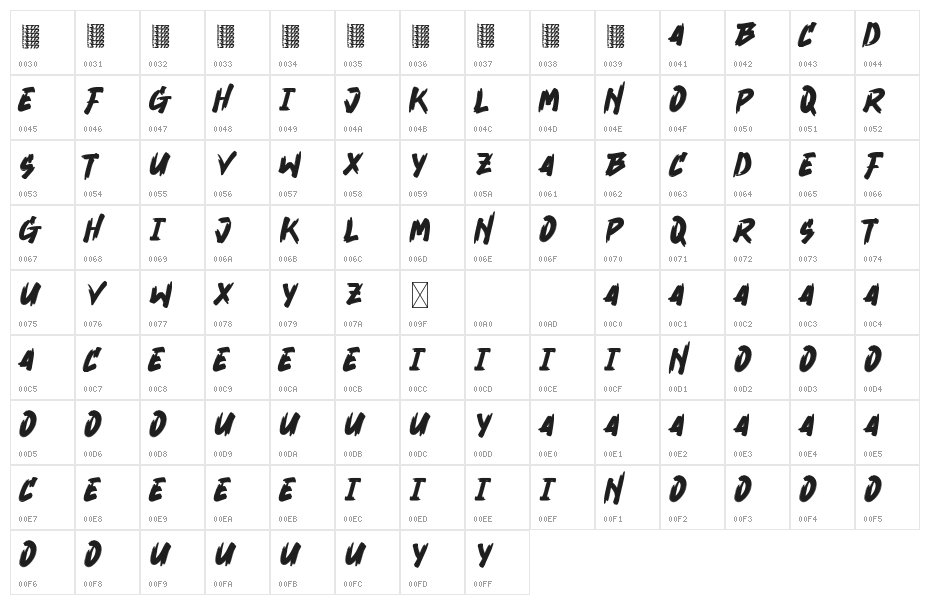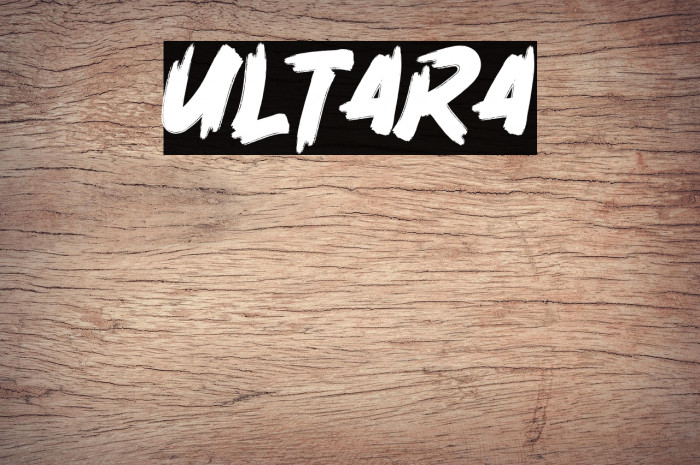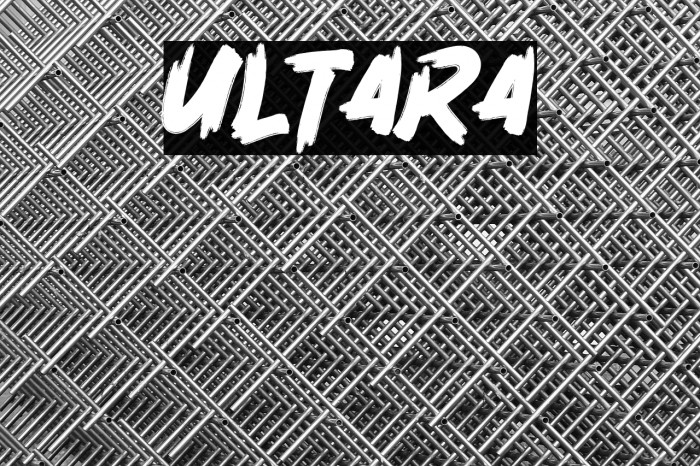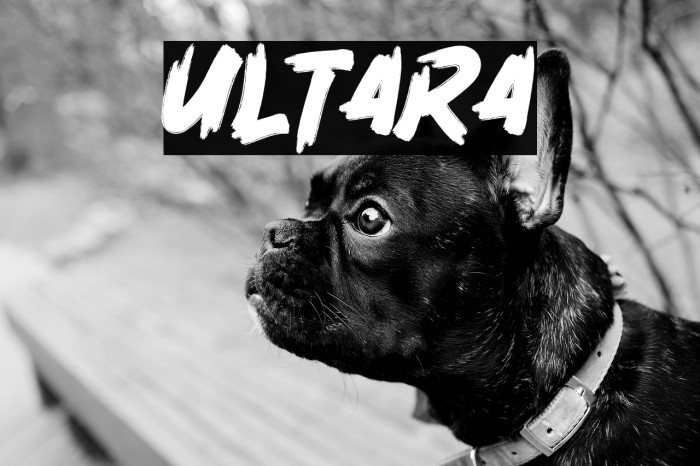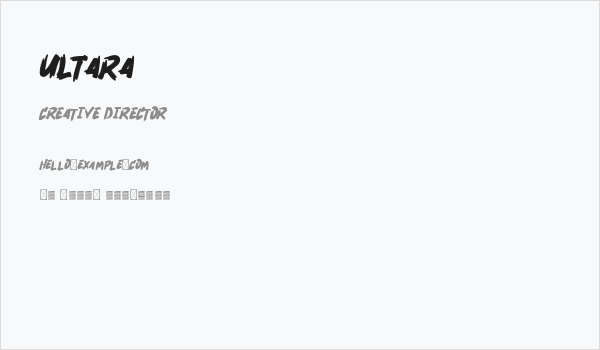
Ultara Font
Ultara Description
A bold, brush-style font with a dynamic and energetic appearance, featuring rough edges and a hand-painted look.
| Overall Style | Modern, Artistic |
| Use Case | Headlines, Posters, Branding |
| Proposed Projects | Posters, headlines, branding, and artistic projects. |